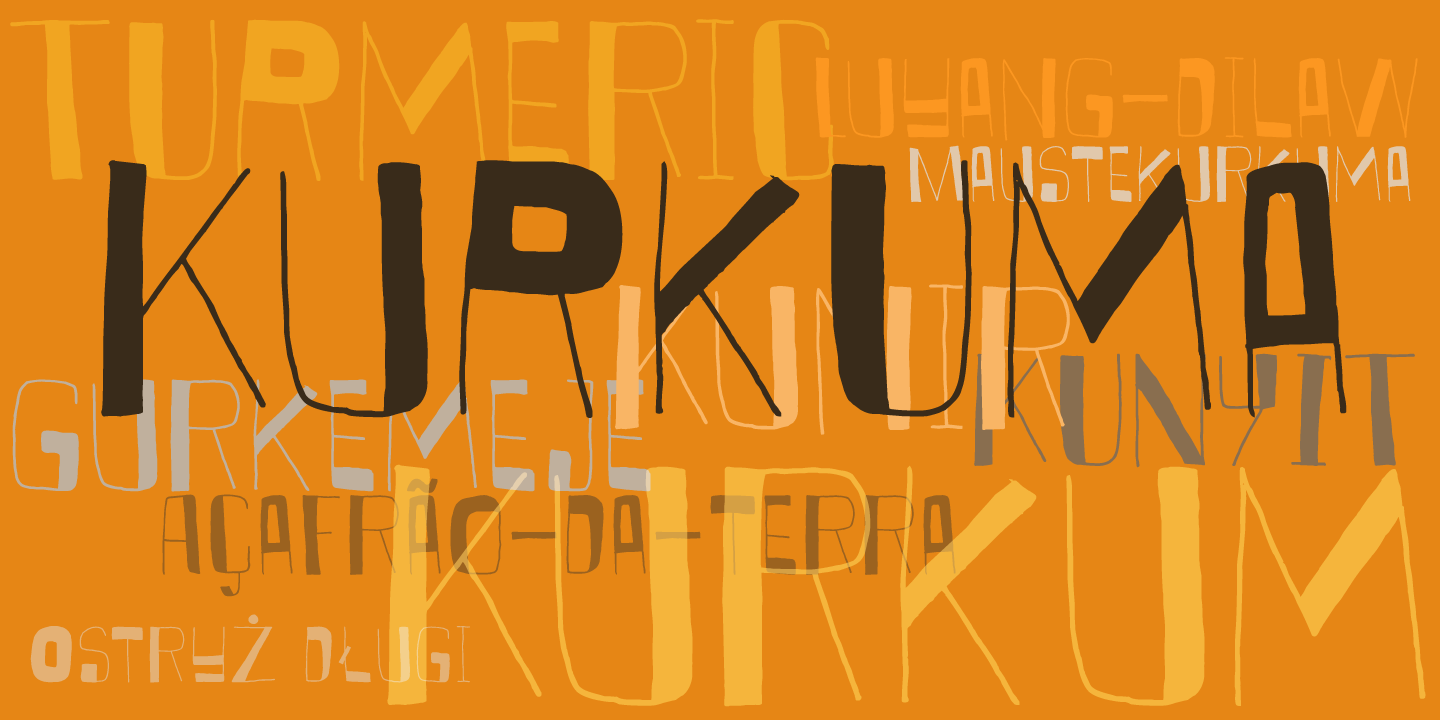
The Kurkuma Font excels in various design applications including organic spice company branding, natural health supplement marketing, Ayurvedic wellness center communications, golden turmeric product packaging, holistic healing practice identities, natural medicine promotions, organic food restaurant signage, herbal wellness documentation, natural skincare brand materials, and healing wellness projects that demand spice authenticity and natural sophistication.
What makes the Kurkuma Font exciting is its golden embodiment of natural healing wisdom and spice heritage through letterforms that capture the essence of turmeric's medicinal properties and the ancient tradition of herbal wellness practices. This typeface demonstrates exceptional warmth through carefully crafted characters that suggest the golden glow of turmeric powder, the earthy richness of natural spices, and the healing wisdom that makes traditional herbal medicine so therapeutically valuable and culturally significant. The font's spice personality makes it perfect for wellness brands and natural health organizations seeking to communicate herbal authenticity, healing tradition, and the kind of golden warmth that creates memorable wellness experiences through typography that literally glows with natural healing energy.
The Kurkuma Font family typically includes warm weight variations that enhance the natural aesthetic, featuring organic styling options and extended character sets optimized for wellness communications and natural health applications. These family options often include spice-inspired alternates, herbal symbols, and natural decorative elements that provide designers with comprehensive tools for creating authentically natural typography that celebrates herbal wisdom while maintaining contemporary design appeal and wellness credibility.
Wellness professionals and natural health organizations consistently select Kurkuma Font Free Download for projects requiring typography that communicates natural authenticity and herbal sophistication. This typeface delivers exceptional performance in wellness marketing, natural health branding, and herbal communications where establishing healing credibility and creating warm natural atmosphere is essential for wellness engagement. The font's turmeric character makes it particularly effective for supplement and holistic applications. Download Kurkuma Font Free Download today to access this naturally healing typeface that transforms wellness communications with its golden elegance and herbal sophistication, creating compelling natural health experiences that honor the magnificent healing properties of traditional herbal medicine while celebrating the golden wisdom that defines authentic natural wellness and herbal healing excellence.